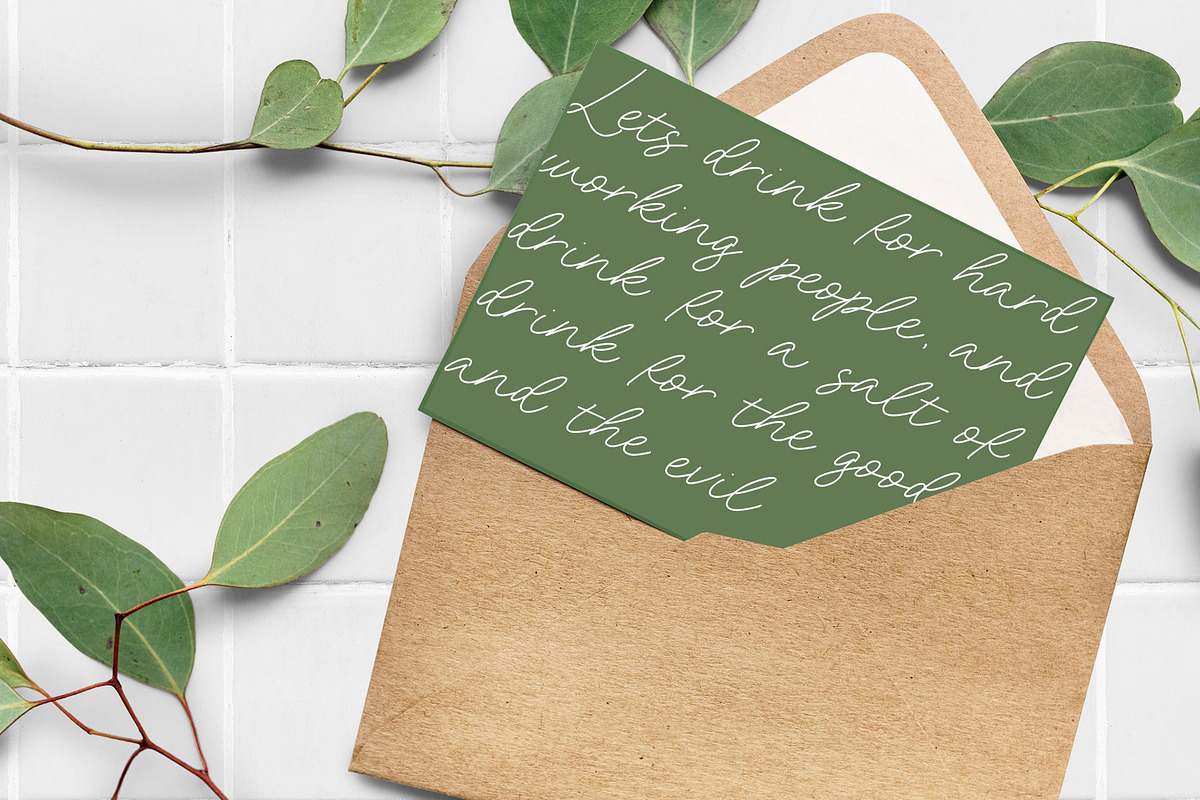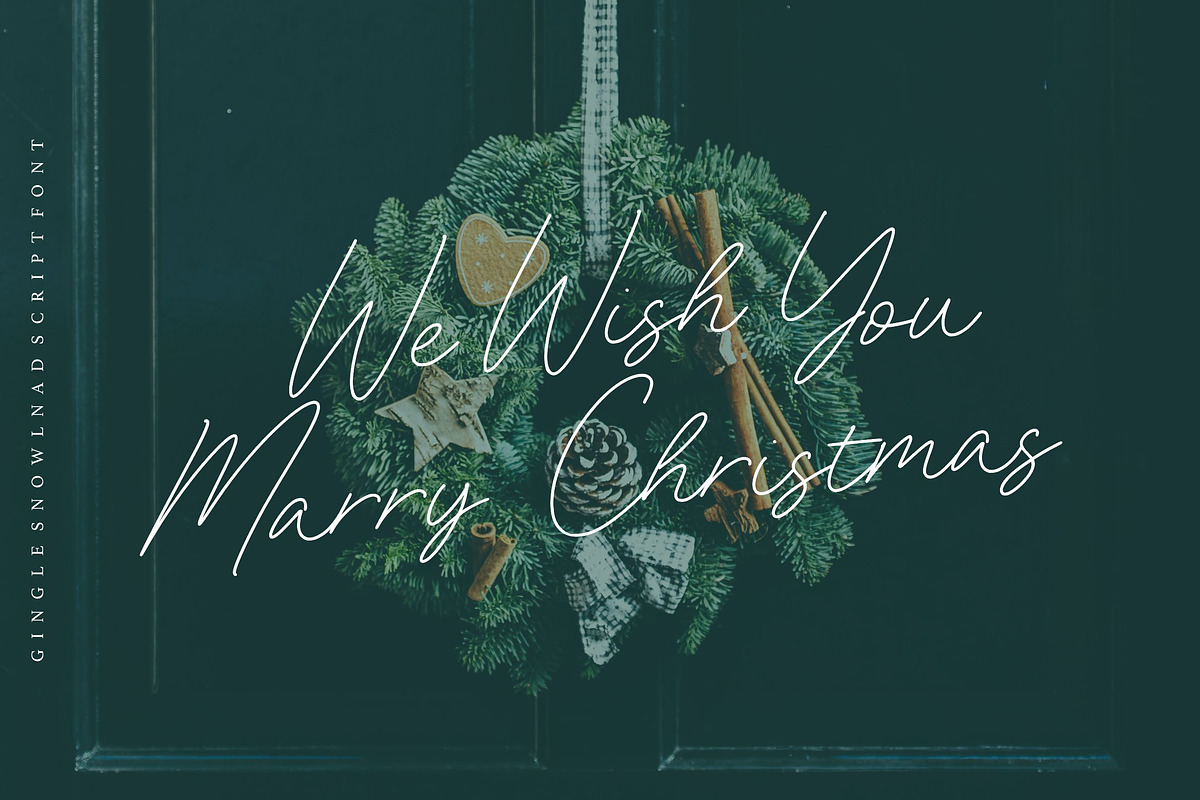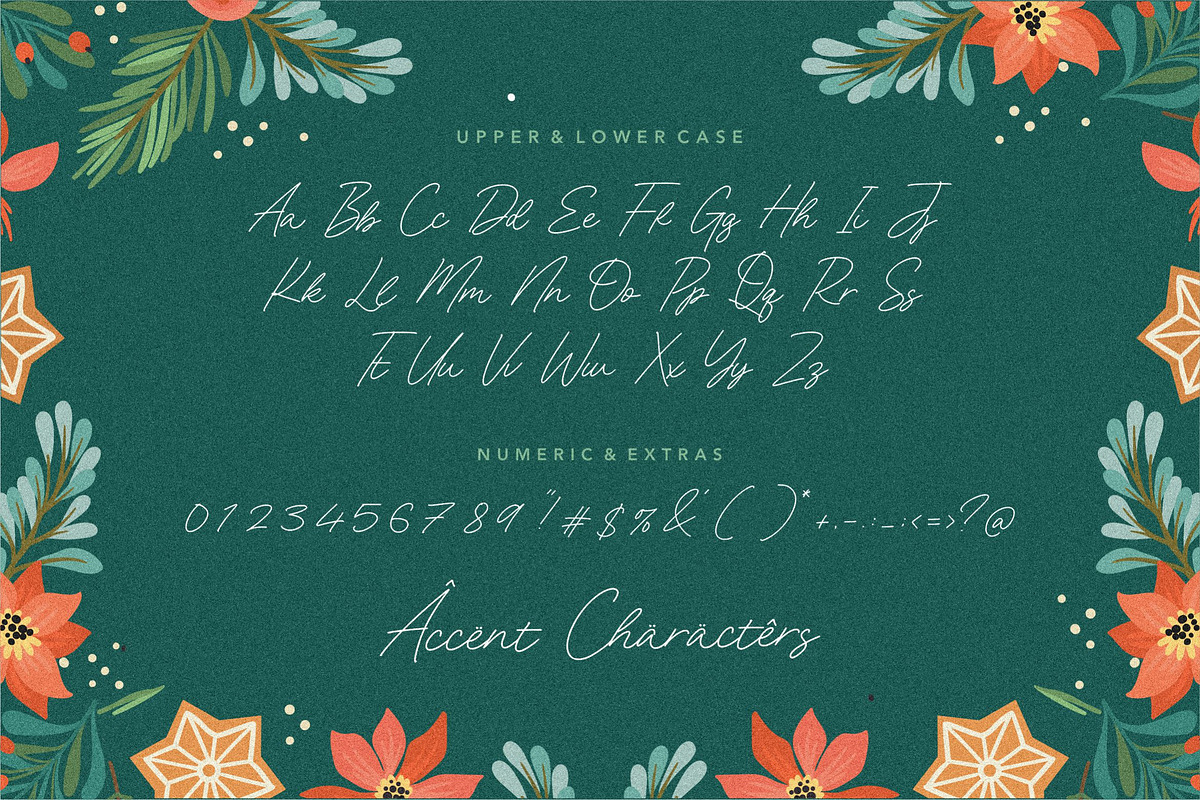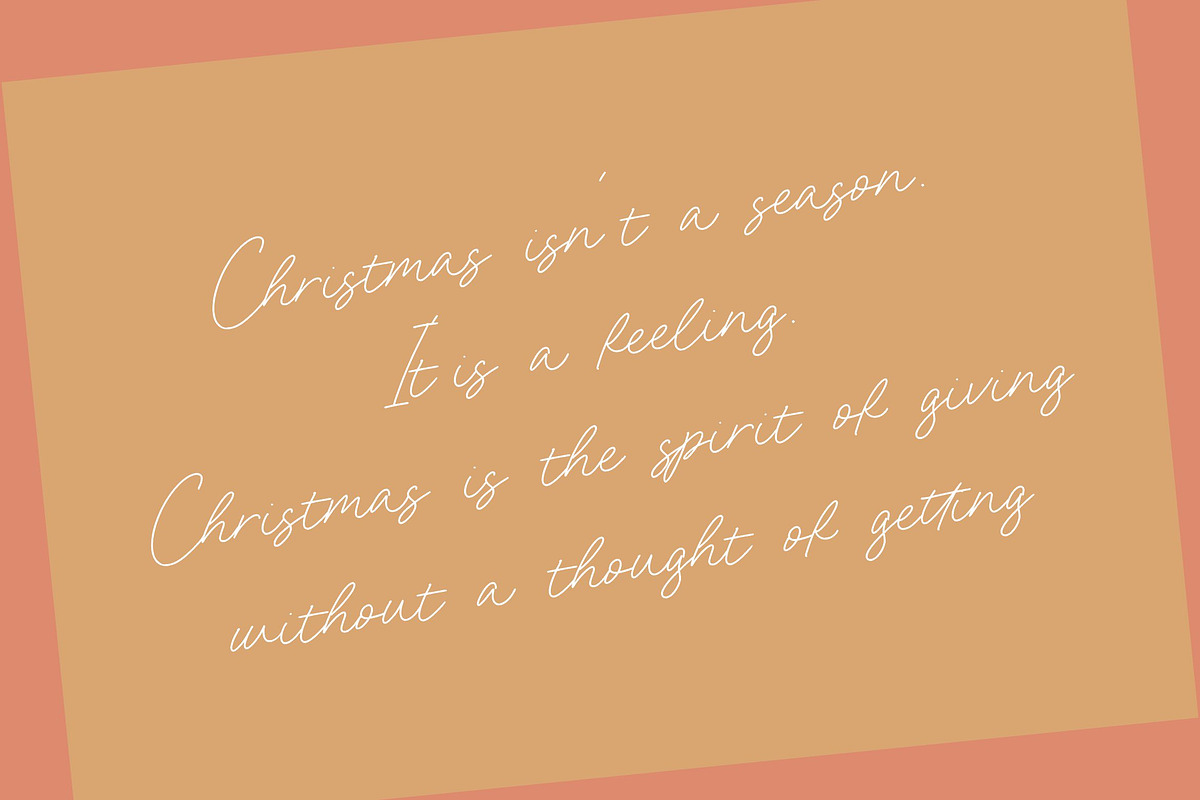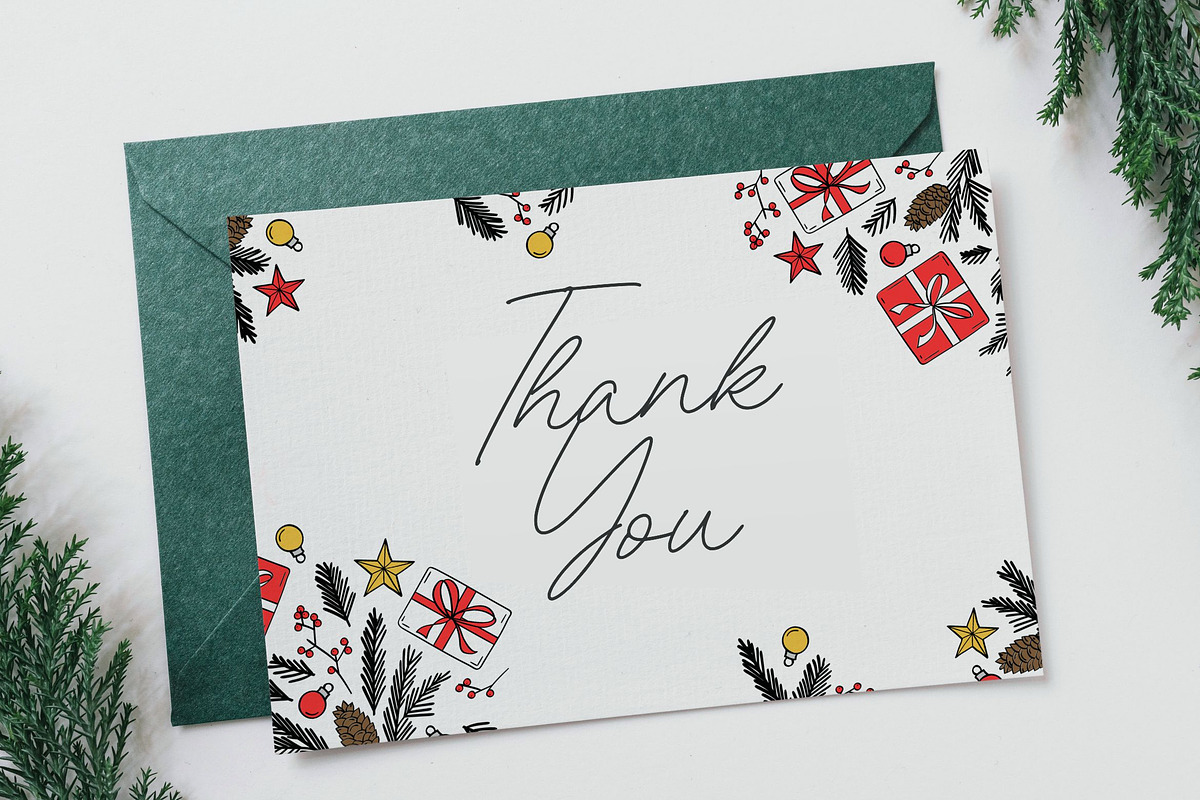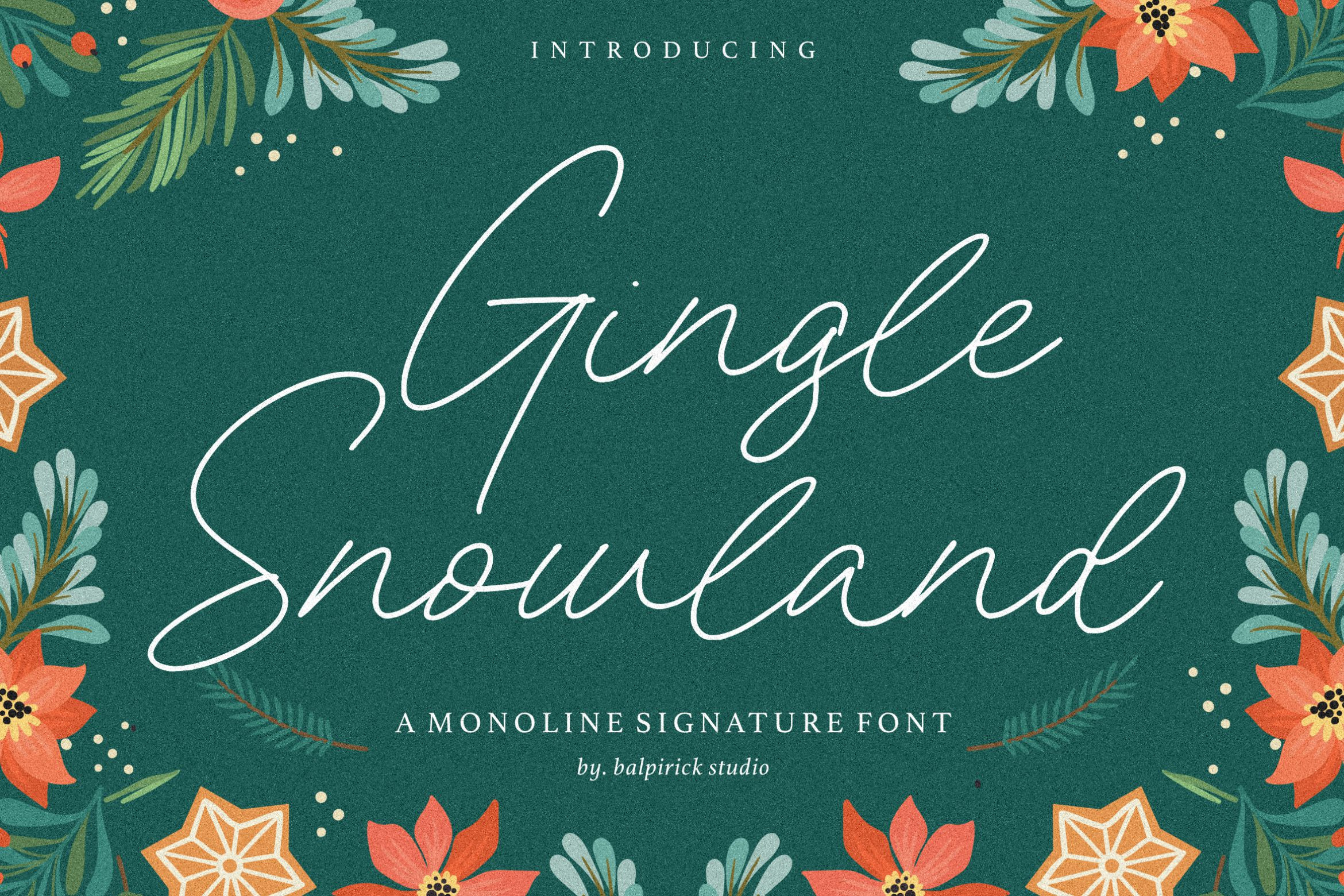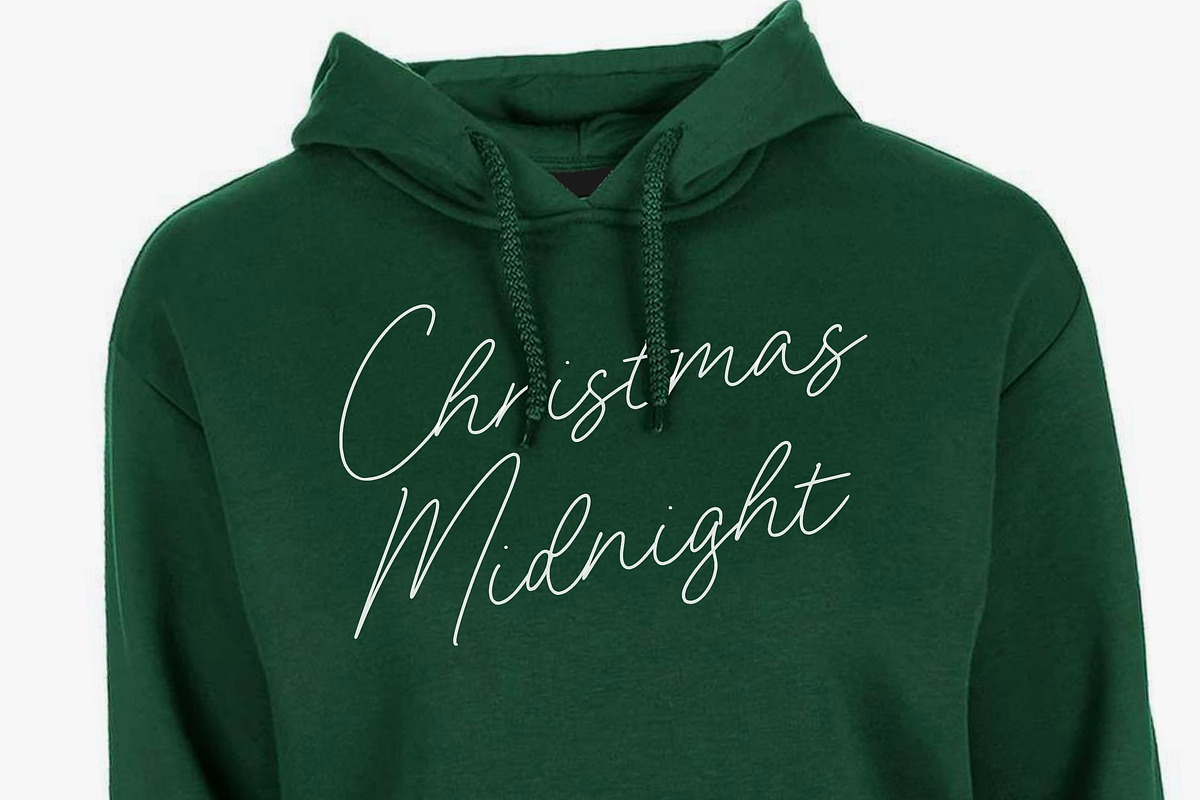
Gingle Snowland - Signature Font
Proudly Present, Gingle Snowland Font
Gingle Snowland is a gorgeous monoline script font. This amazing typeface is perfect for product packaging, branding project, magazine, social media, wedding invitations, or just used to express words above the background.
- also multilingual support